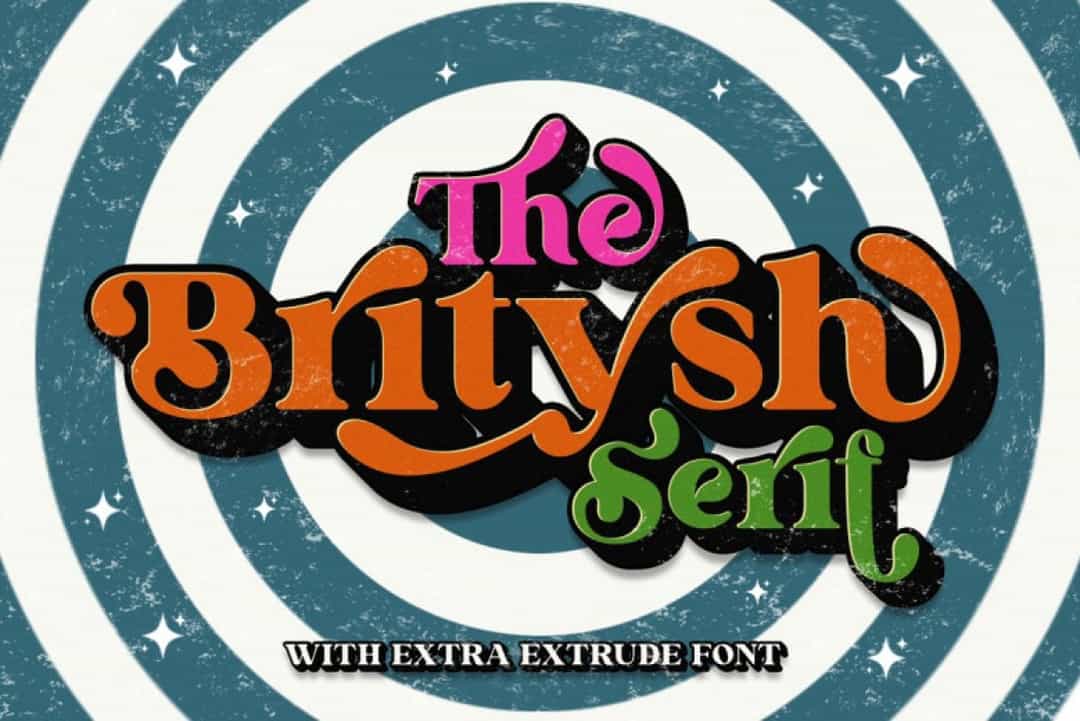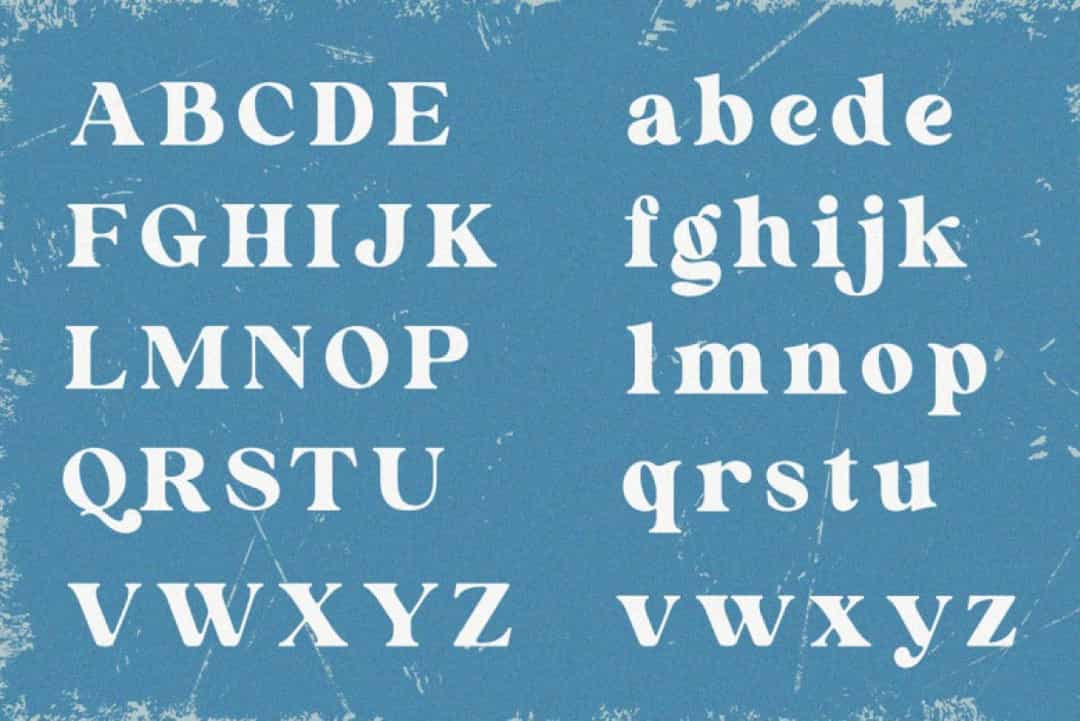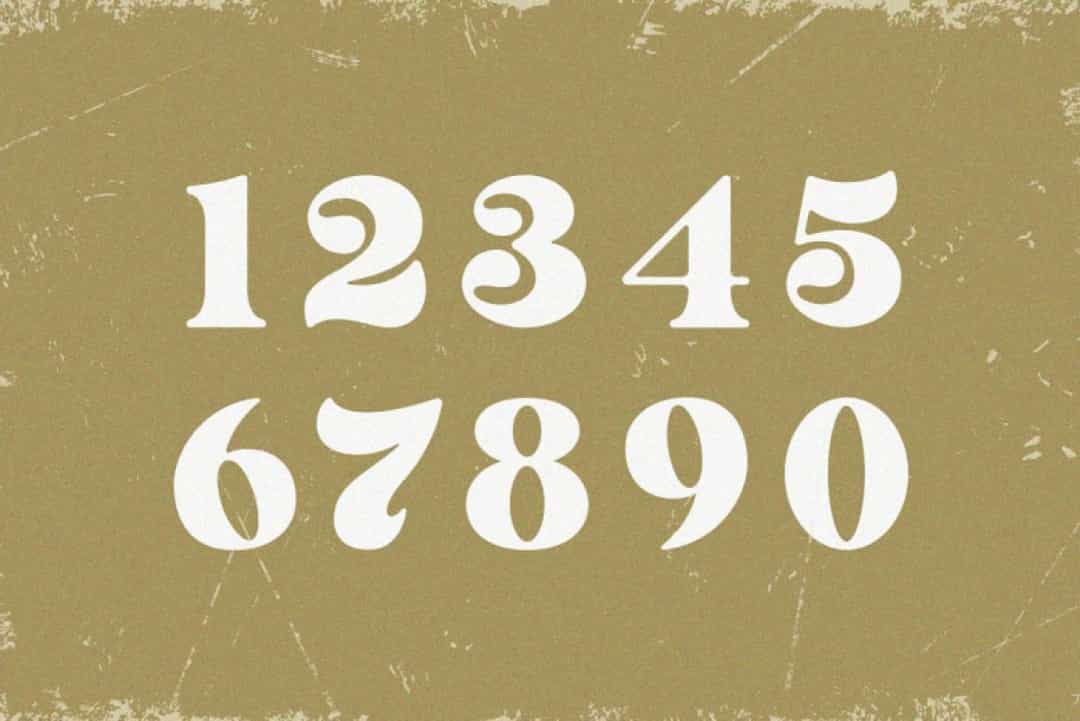
Britysh Serif Font is an elegant, balanced contemporary font featuring distinctive vintage serif fonts for easy stacking into any variation or shape. You can create unique looks in just seconds by layering this font to achieve desired effects.